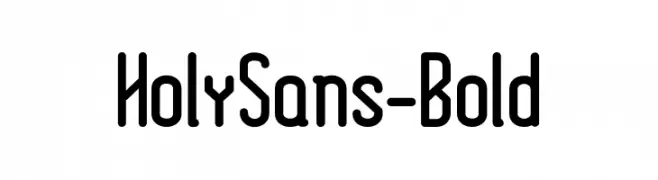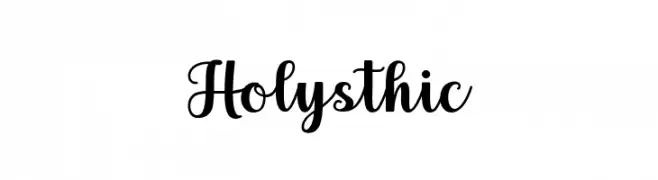
( Fonts by Weape Design )
A bold, playful font with rounded edges and a hand-drawn feel.
( Fonts by Chung )
A bold, decorative font with intricate details and a unique flair.
A bold, playful handwritten font with outlined characters and a casual style.
A modern, elegant script font with decorative loops and smooth flow.
A bold, brush-style font with dynamic, hand-painted strokes.
A bold, italic brush-style font with dynamic, expressive strokes.
A bold, brush-style font with an energetic and artistic flair.
A modern, oblique font with smooth, rounded edges and consistent stroke width.
A bold, rounded sans-serif font with a modern and friendly appearance.
A modern, light sans-serif font with rounded, tubular characters.